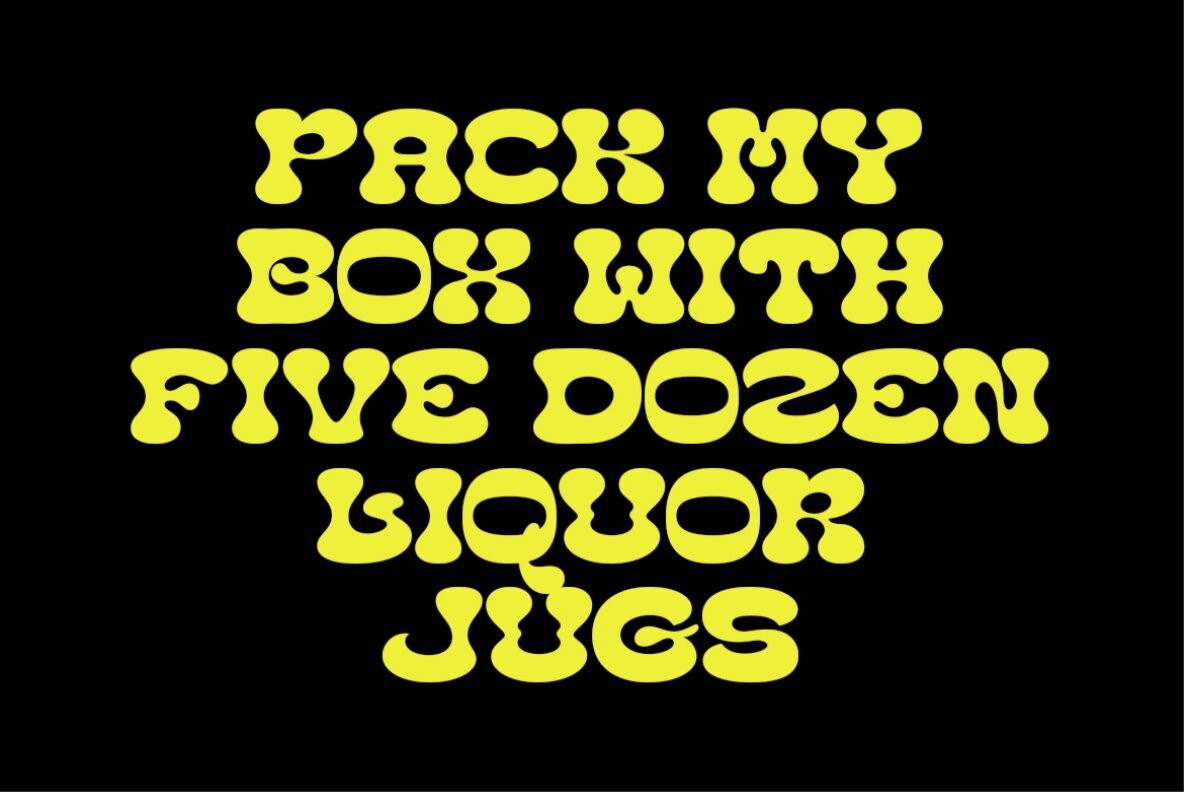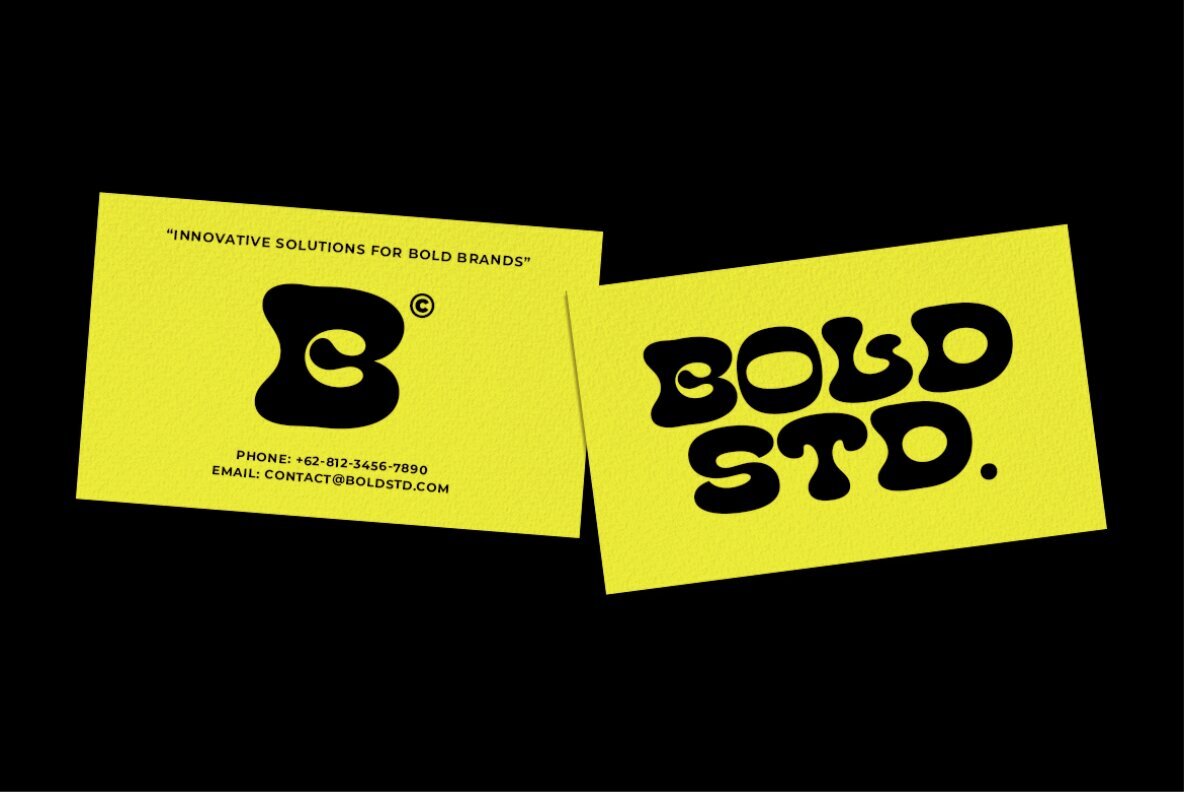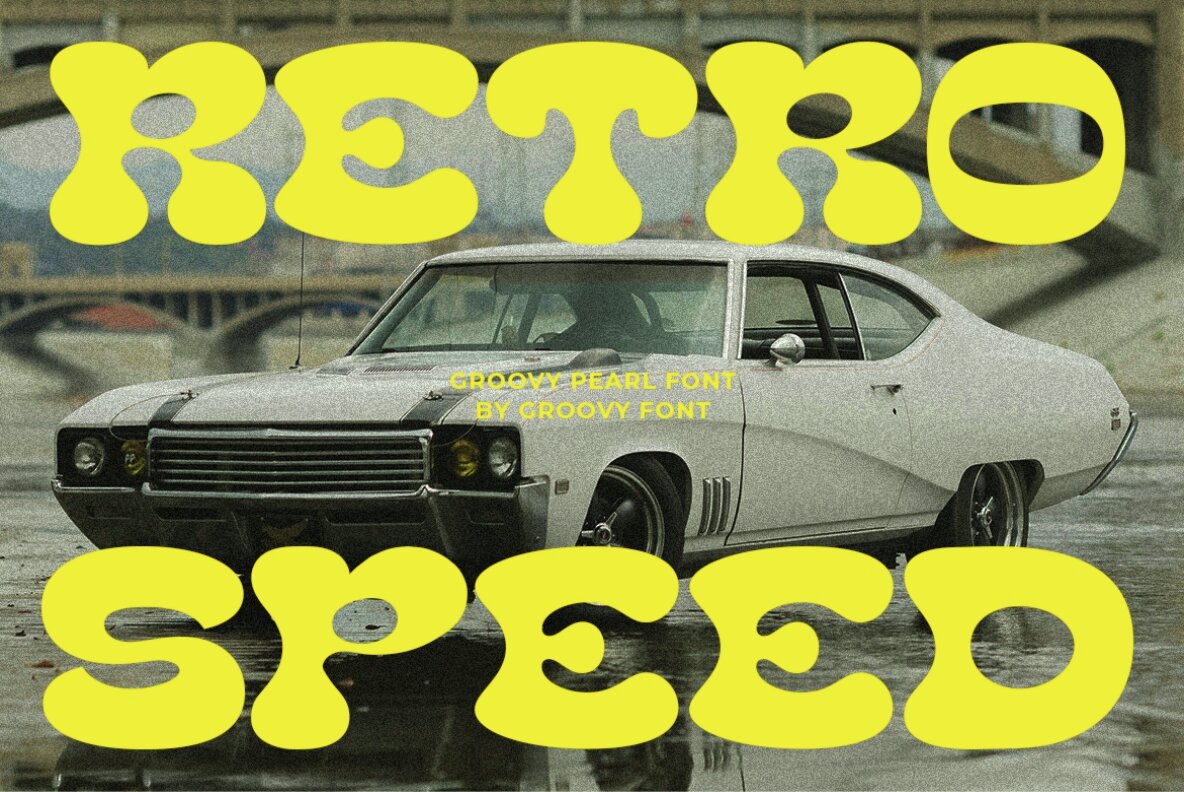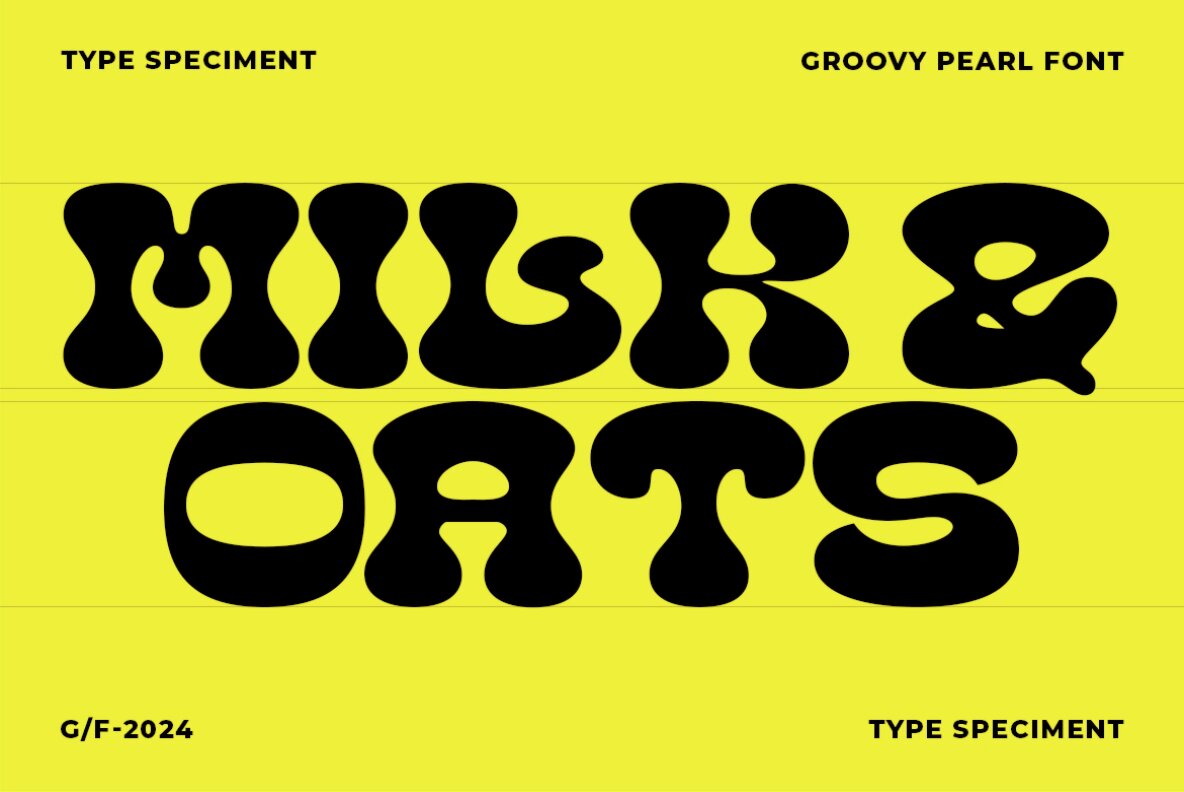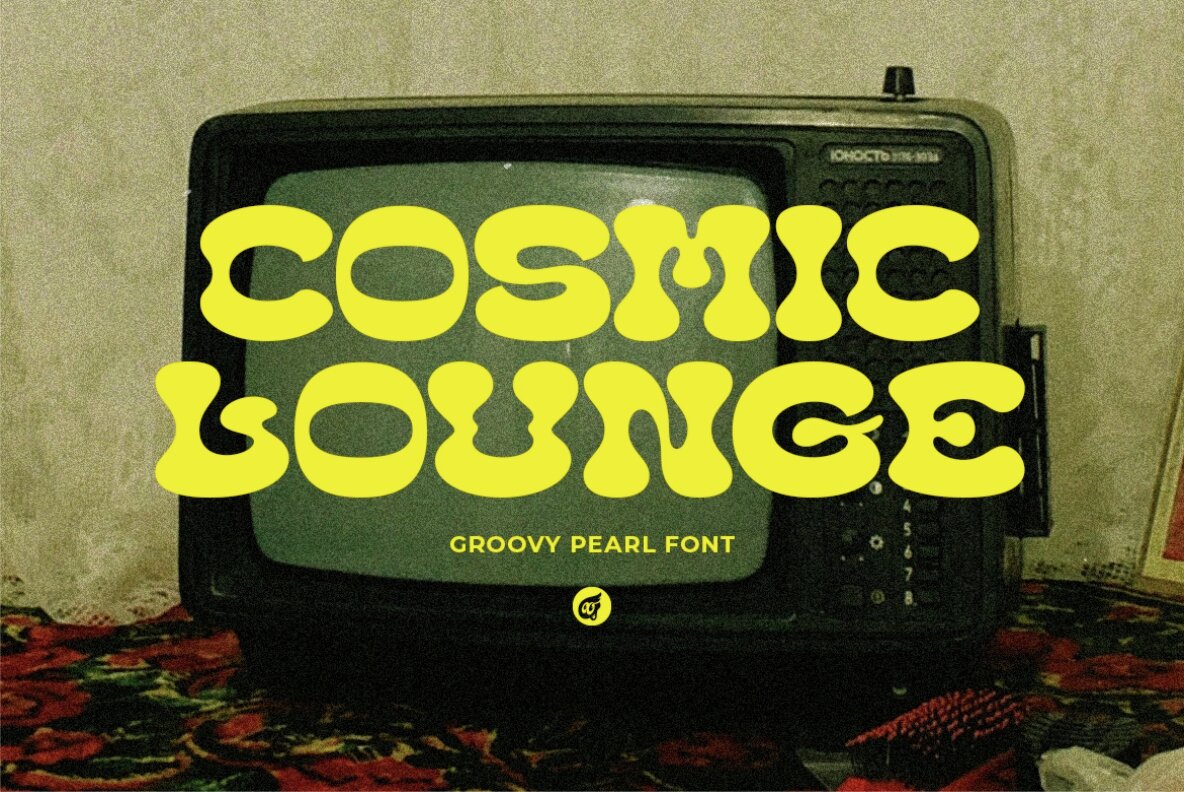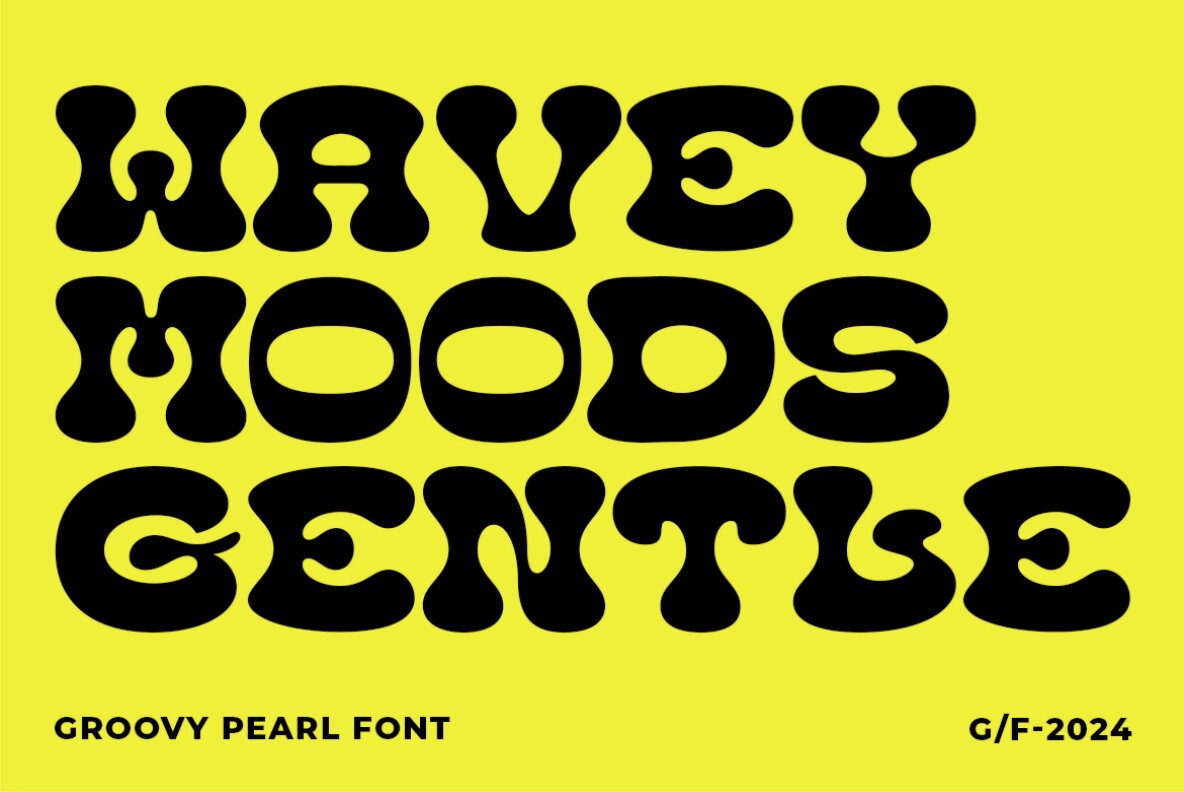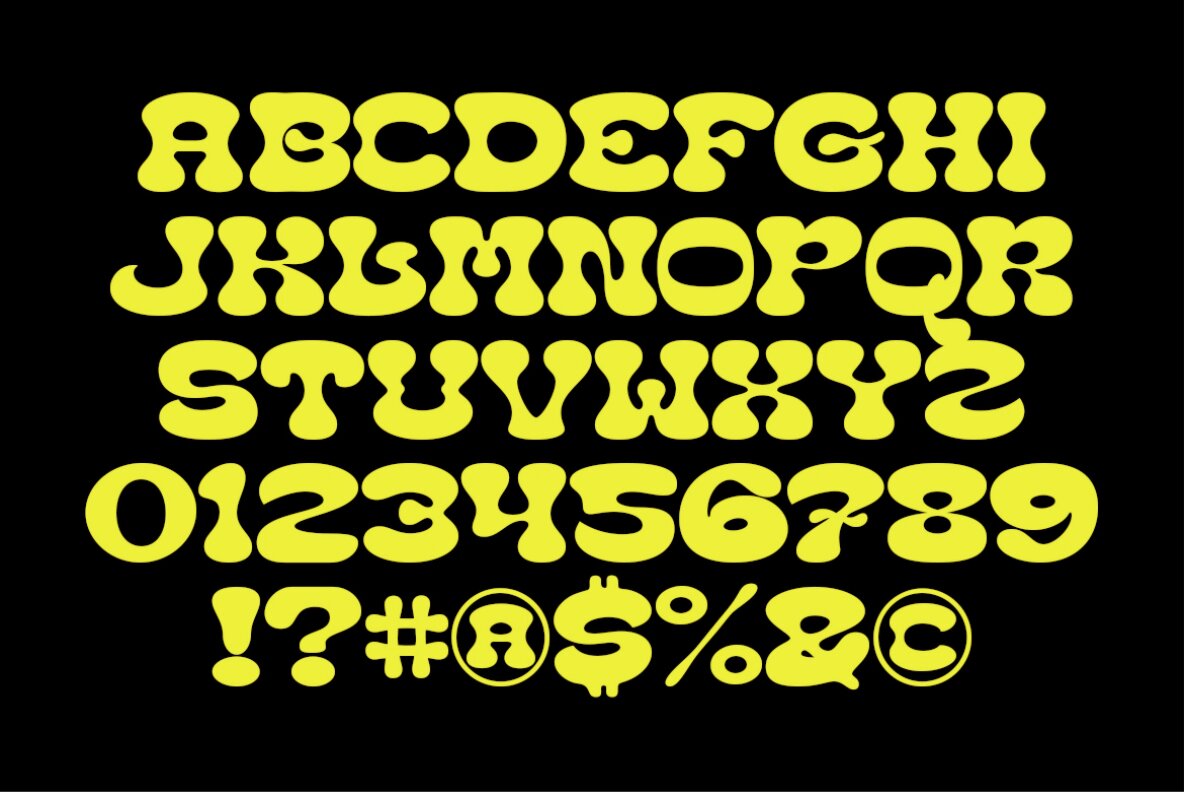
Groovy Pearl Font
Groovy Pearl
Groovy Pearl is a fancy display font that captures retro charm with its bold and playful design. Its unique style is ideal for infusing your projects with a sense of nostalgia and fun. Whether you're designing posters, packaging, or branding materials, Groovy Pearl adds a vibrant flair and distinctive touch to any creative task.
This font offers a comprehensive character set, including uppercase and lowercase letters, numerals, and punctuation marks. Additionally, it supports multilingual characters, making it versatile for a wide range of design needs. With Groovy Pearl, every design becomes a playful journey back in time, perfect for capturing the spirit of the past in modern projects.